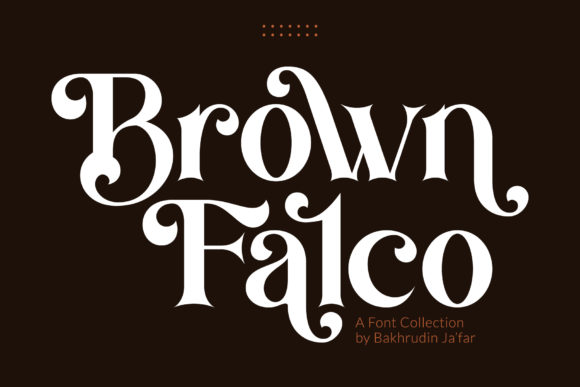
Prepare yourself to be mesmerized by Brown Falco Font, an authentic and classy serif font that will transform your designs into masterpieces. Its elegant curves and timeless charm will leave you breathless, making it the perfect choice for any project seeking a touch of sophistication.
With Brown Falco Font, you'll embark on a journey of creativity like no other. Its PUA encoding grants you effortless access to a treasure trove of glyphs and swashes, allowing you to unleash your imagination and craft designs that captivate and inspire.
Immerse yourself in the beauty of Brown Falco Font, where each letter is meticulously crafted to deliver a harmonious blend of classic and modern aesthetics. Its refined details and timeless appeal make it an instant favorite among designers seeking elegance and originality.
Unleash the power of Brown Falco Font and elevate your designs to new heights. Its versatility knows no bounds, making it suitable for an array of projects, from logos and branding to wedding invitations. With Brown Falco Font, the possibilities are endless.
Embrace the allure of Brown Falco Font and let your creativity soar. Its ravishing style will transform your designs into works of art, leaving a lasting impression on your audience.